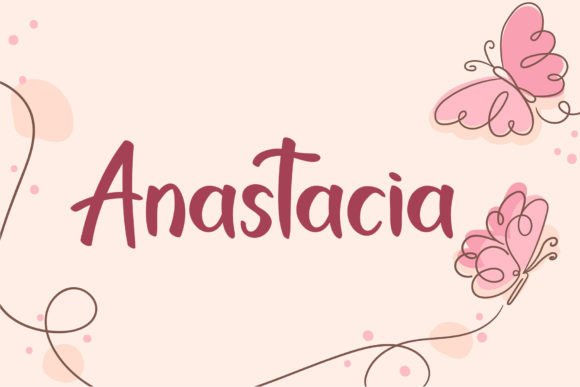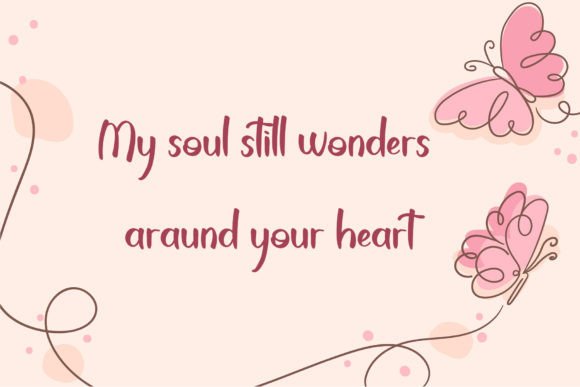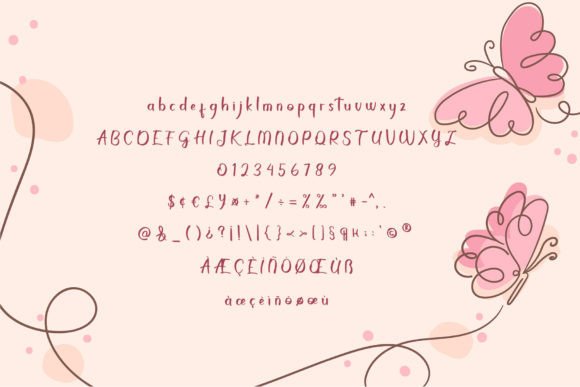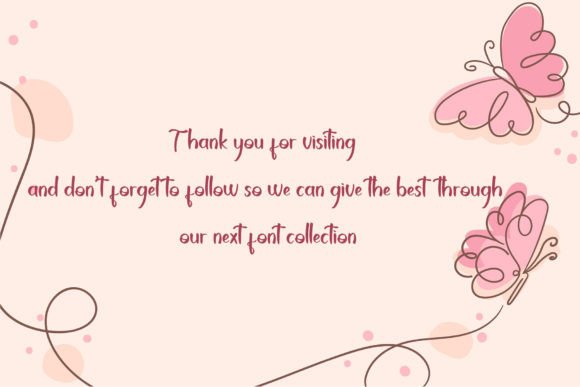
The Sweet Charm of Butterfly Font: A Designer’s Delight
I’ll never forget the time I was working on a wedding invitation project, and my client asked me to create a custom design that exuded warmth and elegance. I spent hours scouring font libraries, but nothing seemed quite right. That’s when I stumbled upon Butterfly Font, a sweet and friendly handwritten font that instantly captured the essence of the occasion. In this article, I’ll share my experience with Butterfly Font, its features, and how to make the most of it in your designs.
A First Impression: What I Love About Butterfly Font
Butterfly Font is a beautiful, handwritten font that’s perfect for adding a touch of whimsy to your designs. Here are some things I love about it:
- ✨ Sweet and Friendly: Butterfly Font has a warm, approachable feel that’s perfect for wedding invitations, cards, and other designs that require a personal touch.
- ✅ Highly Legible: Despite its playful nature, Butterfly Font is surprisingly legible, even at smaller sizes.
- 💕 Emotional Connection: This font has a way of evoking emotions and creating a connection with the reader, making it ideal for designs that require a personal touch.
While Butterfly Font is an excellent choice for many designs, there are a few quirks to be aware of:
- 🤔 Limited Formality: Butterfly Font is a highly informal font, which may not be suitable for more formal designs or corporate branding.
- ⚠️ Kerning Issues: As with any font, there may be some kerning issues, particularly with certain letter combinations.
Practical Guide: Using Butterfly Font in Your Designs
Butterfly Font was designed by a talented font designer who wanted to create a font that captured the essence of warmth and elegance. Inspired by the delicate wings of butterflies, this font is perfect for designs that require a personal touch.
| What is Butterfly Font best used for? | Butterfly Font is ideal for wedding invitations, cards, and other designs that require a personal touch. |
| Is Butterfly Font suitable for body text? | While Butterfly Font is highly legible, it’s best used for headings and titles. For body text, a more formal font may be more suitable. |
| Is Butterfly Font available in different languages? | Butterfly Font may not be available in all languages, but it does support some languages with accented characters. |